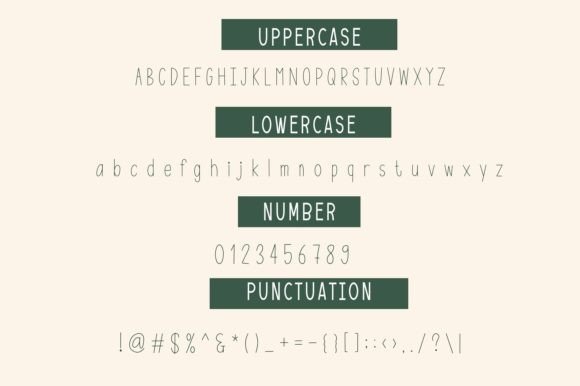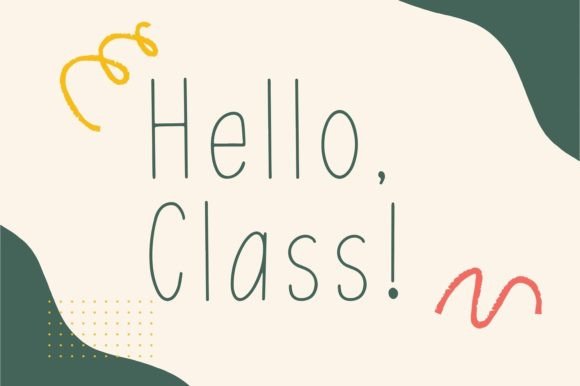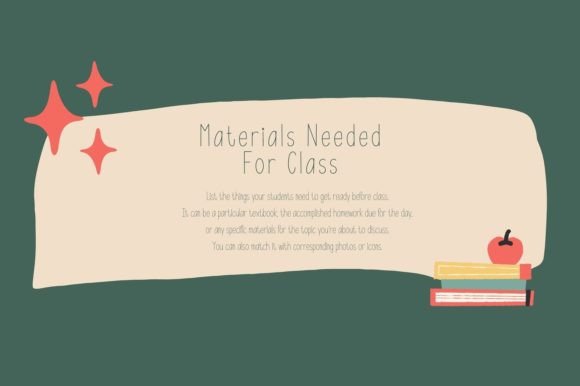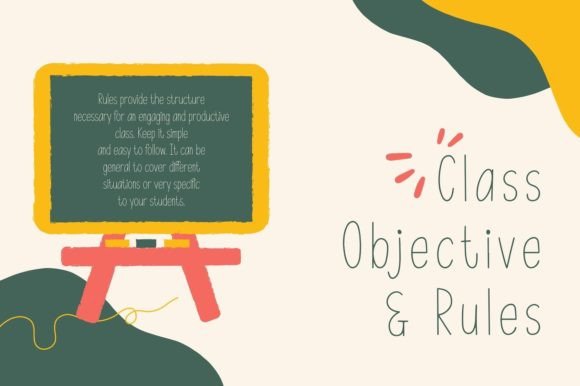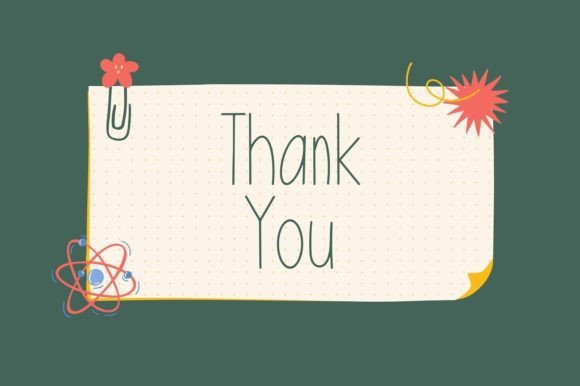
Savannah Font
About Savannah Font
Savannah is a cute handwritten font. The lightness of its characters makes it suitable for a wide range of design projects. It embodies playfulness and authenticity and is the perfect choice for various projects such as blog posts, logos, branding, ads, invitations, greeting cards, planners, photo albums, decorations, and much more. Add it to any of your designs, and enjoy the results!